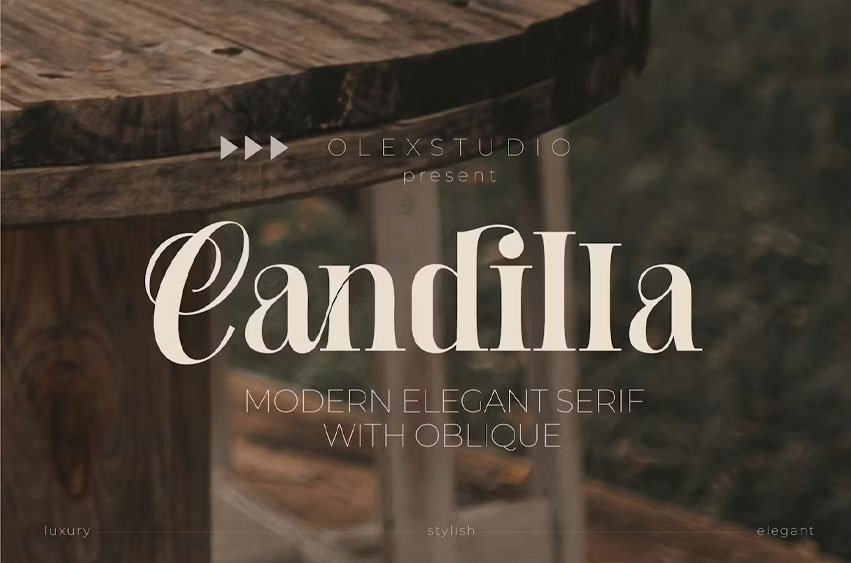
Candilla Font modern Serif Font will look gorgeous on all your designs, invitation, poster design, book design, branding materials, logo’s, and all project design other.
Candilla – modern Serif Font contains standard characters, Lowercase, Lowercase Altenates, Uppercase, Uppercase Alternates, numbers, punctuation, ligatures and international glyphs.